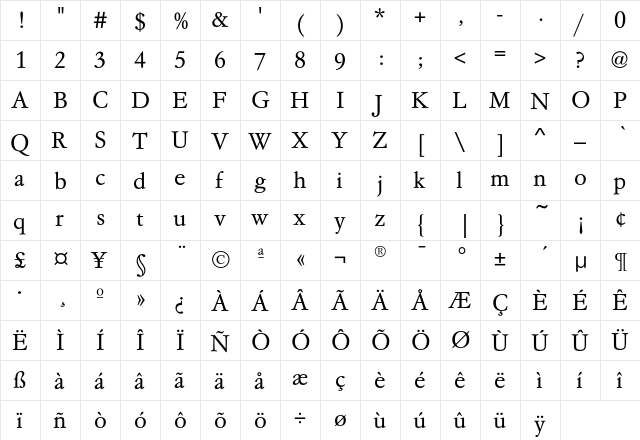
GaramondNo5EF-Light Regular
Design Context for GaramondNo5EF-Light Typeface
GaramondNo5EF-Light offers clean, dependable letterforms without strong stylistic allegiance, making it a practical choice for designers who need flexibility. Its slender proportions lend an understated elegance to any composition.